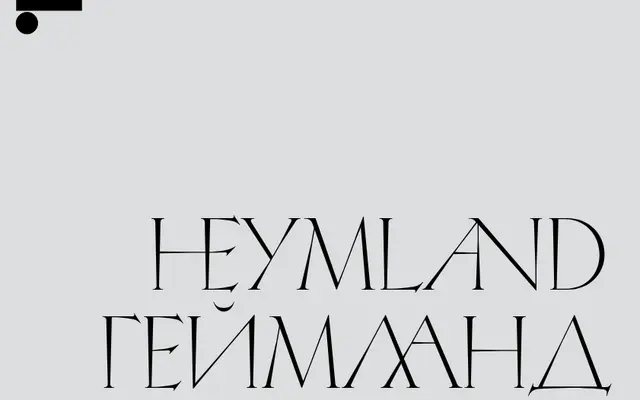
LL Heymland
Lineto · Yevgeniy Anfalov · 2020
A titling typeface by Yevgeniy Anfalov derived from a calligraphic study attributed to Soviet graphic artist Solomon Telingater, itself a geometricised reading of Rudolf Koch's Koch Antiqua.
Anfalov traced the letterforms from an unsigned, undated single-page study found in Telingater's estate, stripping what he considered superfluous detail and unifying the shapes before reintroducing optical corrections to avoid a purely mechanical result. The typeface covers full Latin and Cyrillic character sets, with Cyrillic shapes drawn partly from a 1970 Russian manual on type design, making the whole family a chain of interpretation running from 1920s Germany through Soviet-era Moscow to the present. Custom ligatures drawn for its debut in TATE ETC. magazine in summer 2020 have since been added to the release font.
A titling typeface derived from Roman capitals, drawing on Koch Antiqua's decorative early-1920s character while being systematically geometricised; suited only to display use in its single-weight, all-caps orientation.